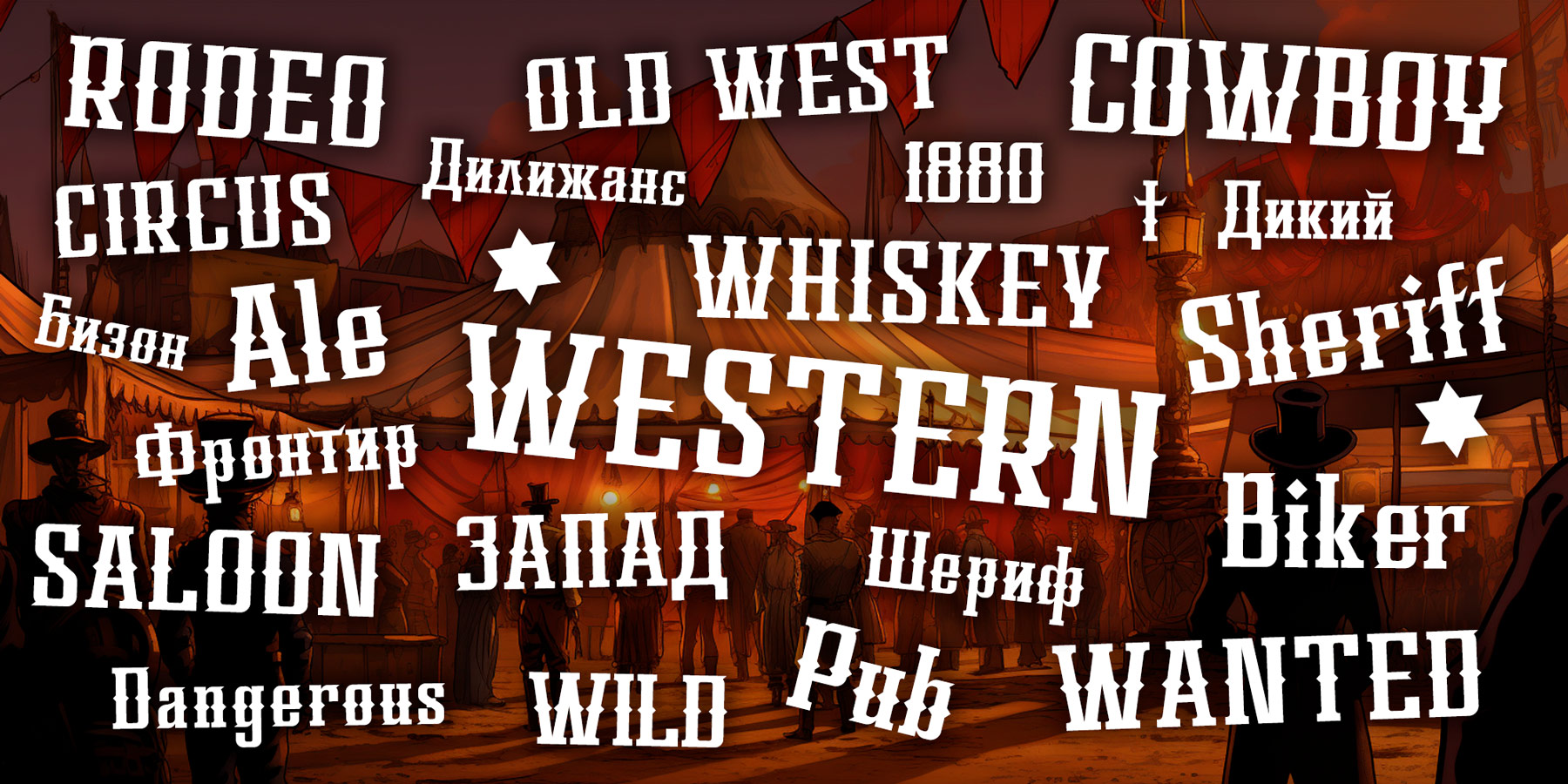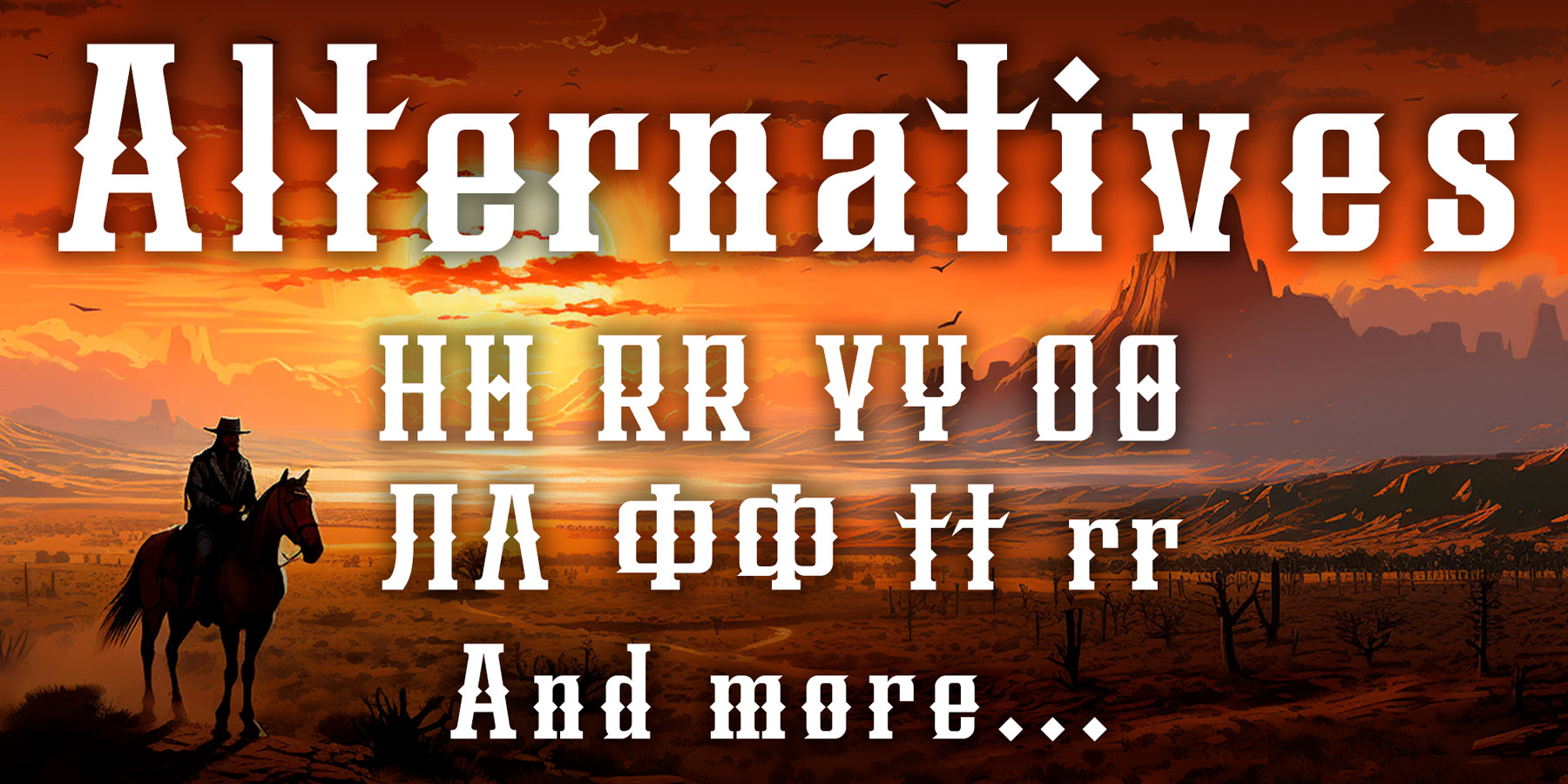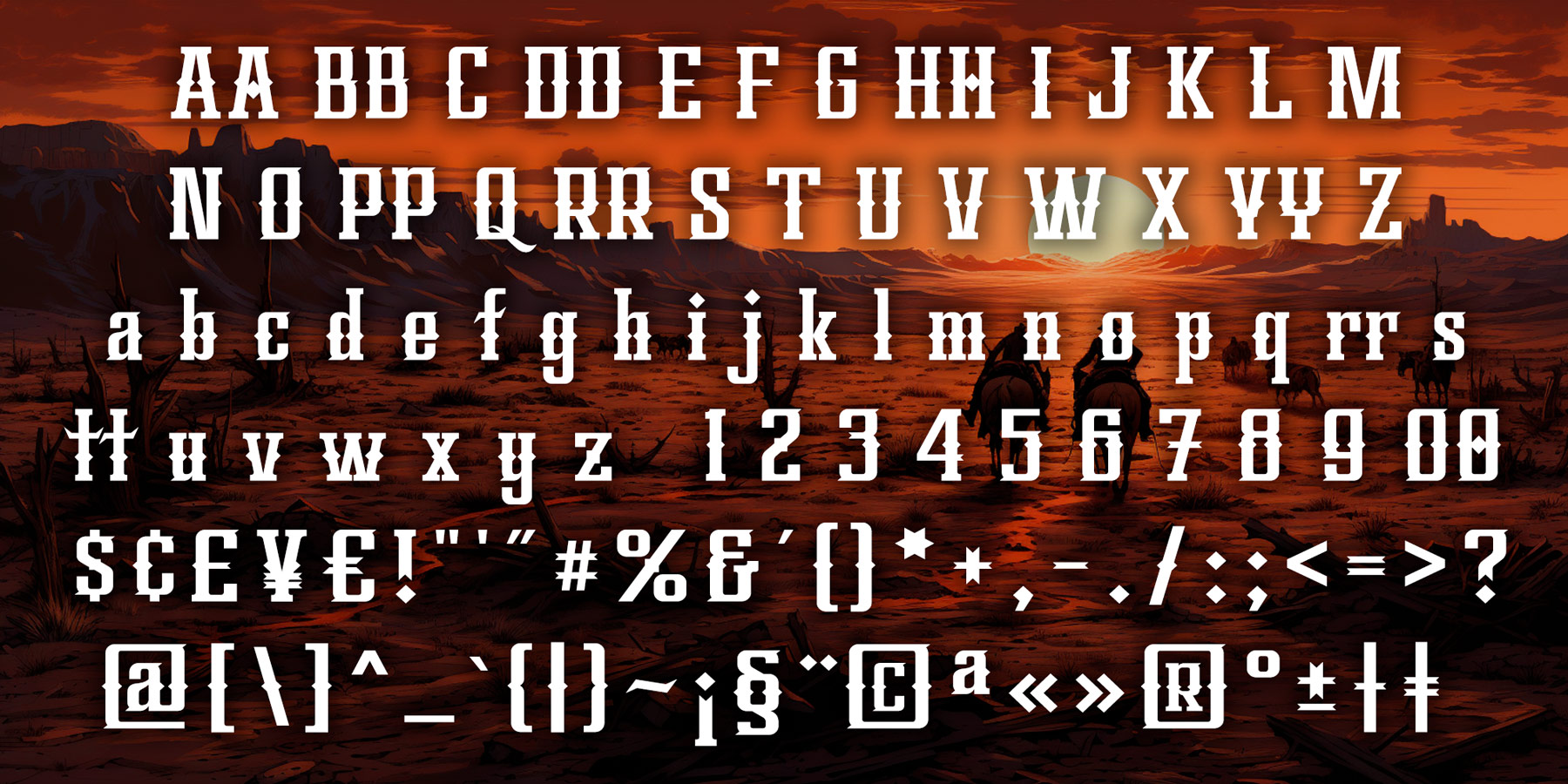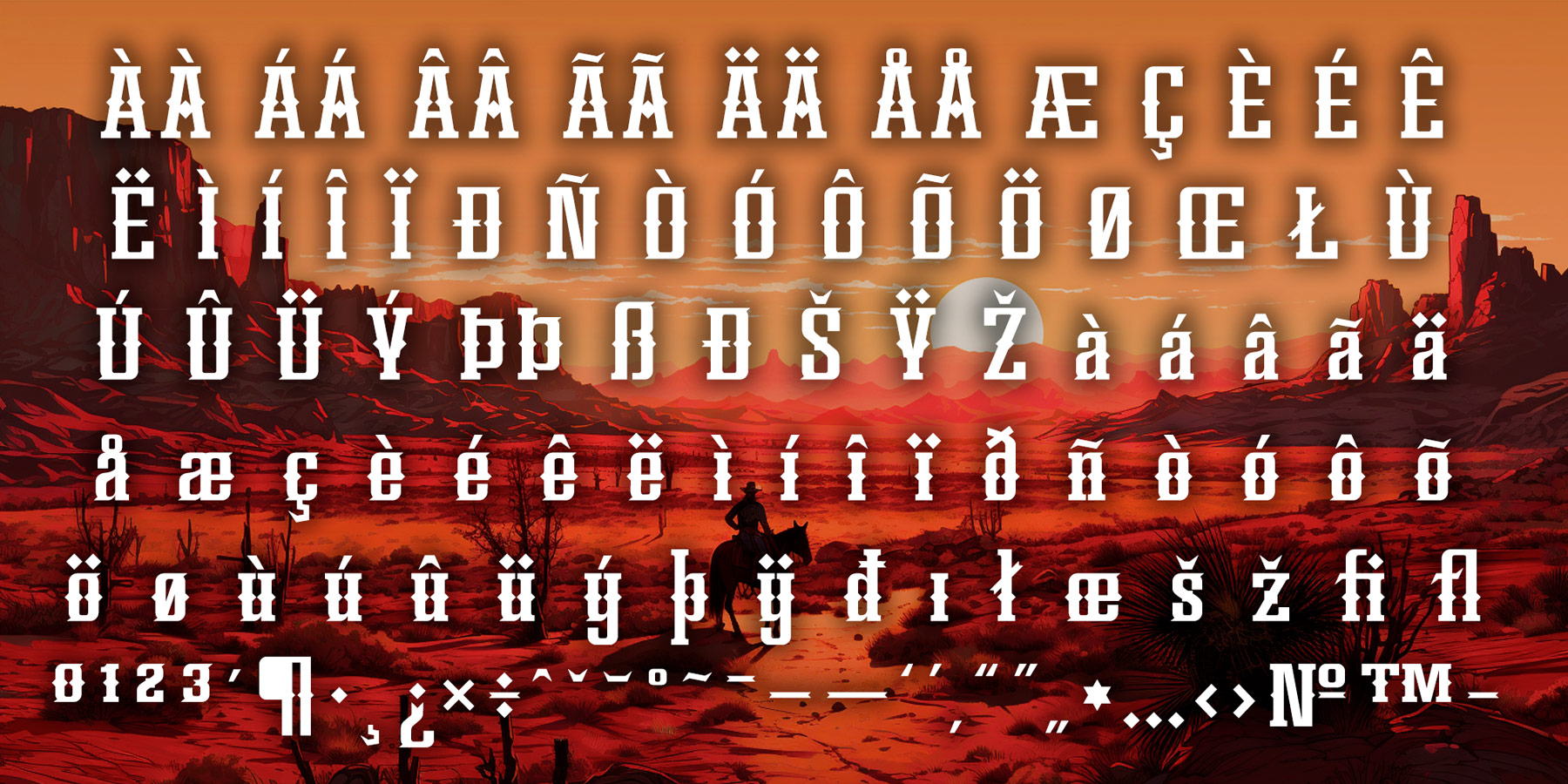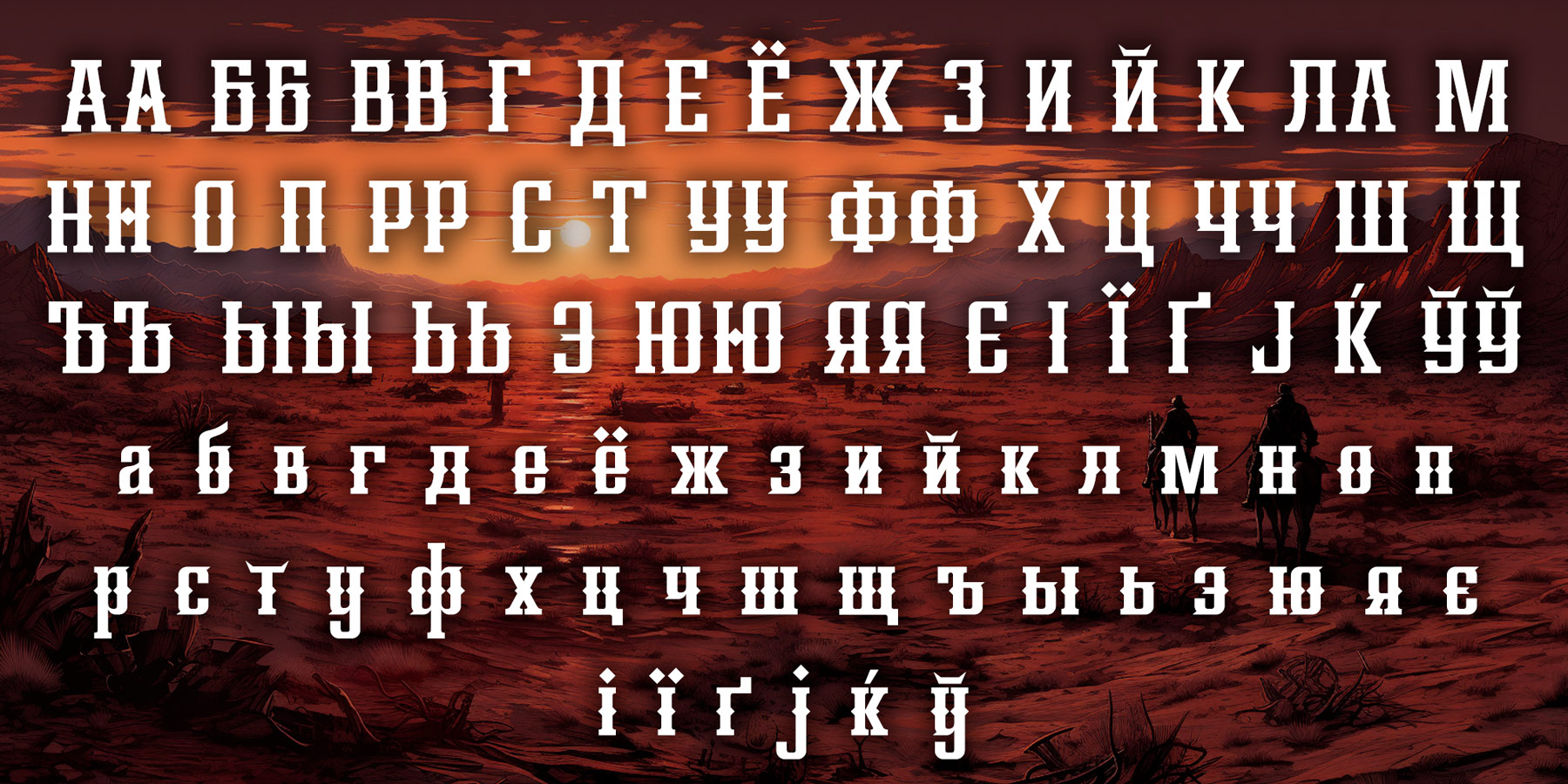
IA Harold the Hunter is a daring good readable Wild West style font with spurs, inspired by old comic books about cowboys.
The font contains a basic character set and some decorative alternates. In addition to basic Latin, there is also an extended Latin and basic Cyrillic.